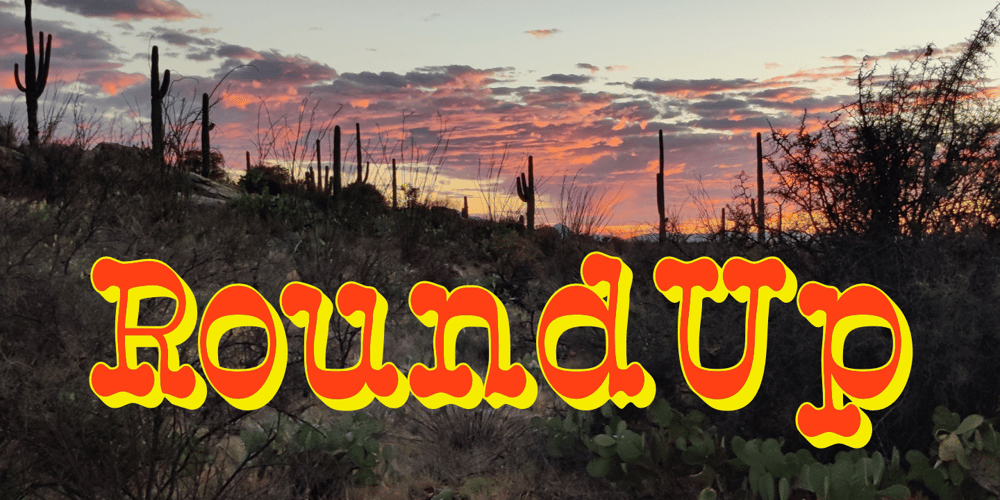
Roundup Font Family was designed by Robert Schenk and published by Ingrimayne Type. Roundup contains 7 styles and family package options. The Roundup family was inspired by fonts from the late 19th century, though it is not based on any one of them. Roundup-Caps was the first of the group to be constructed. It has two sets of upper-case letters that have minor differences. It has reverse contrast, that is, the verticals are thinner than the horizontals. Unlike most of the “Old-West” fonts with reverse contrast, the serifs are not square but have an odd, rounded shape. Roundup-Regular replaced the second set of caps with lower-case letters. A bold style strengthens the vertical elements so that it no longer has reverse contrast. Both the regular and bold styles have matching oblique styles. Finally, there is a hollow version with a shadow to the lower right. This shadowed style has had its inside taken out, creating RoundUp-ShadowInside. The spacing is the same as RoundUpShadowed so it can be layered over RoundUpShadowed to easily create two-colored lettering.